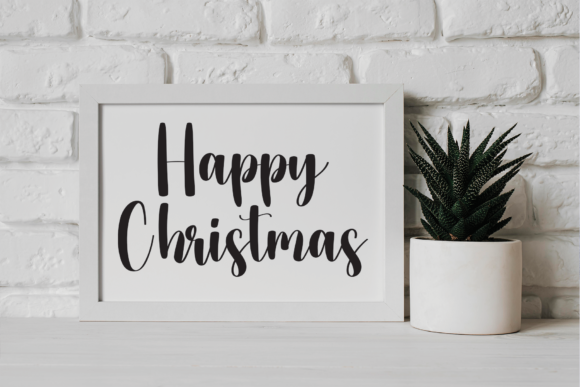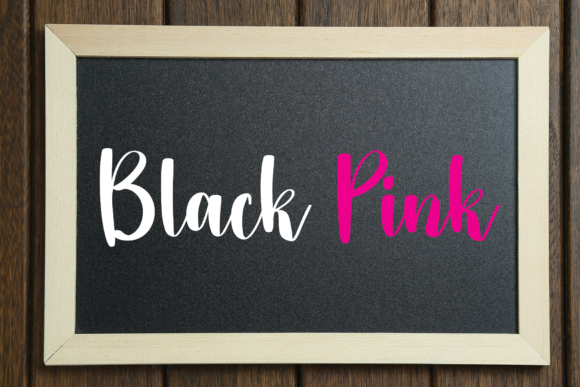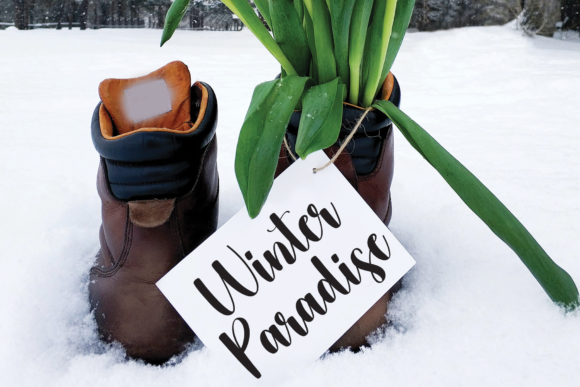
About December is Coming Font
December is Coming is a magical script font carefully created with a touch of elegance. Whether you’re looking for fonts for Instagram or calligraphy scripts for DIY projects, this font will turn any creative idea into a true piece of art!